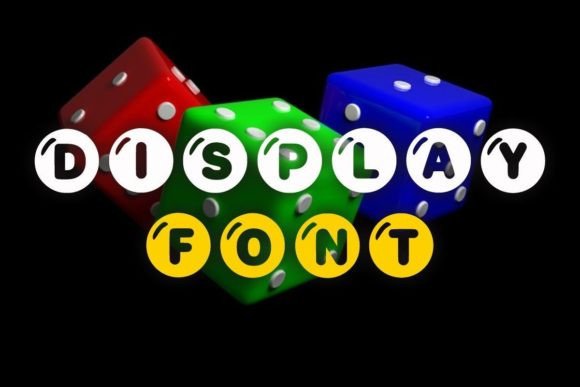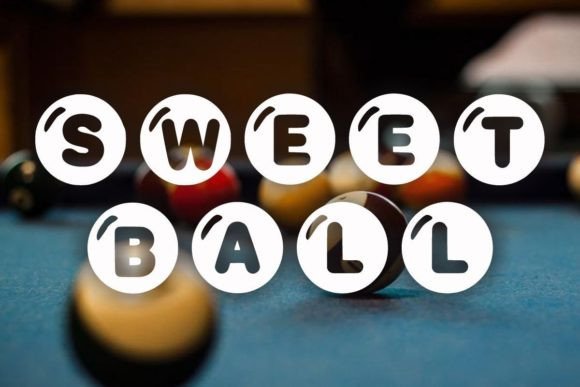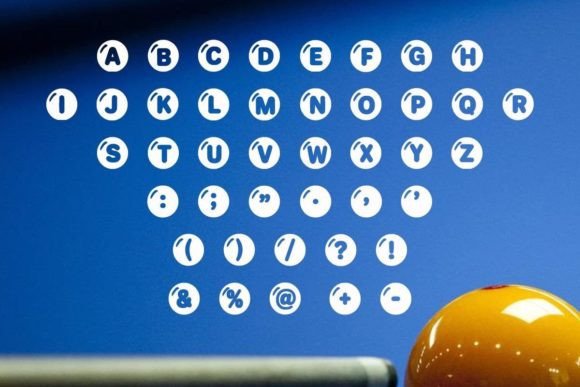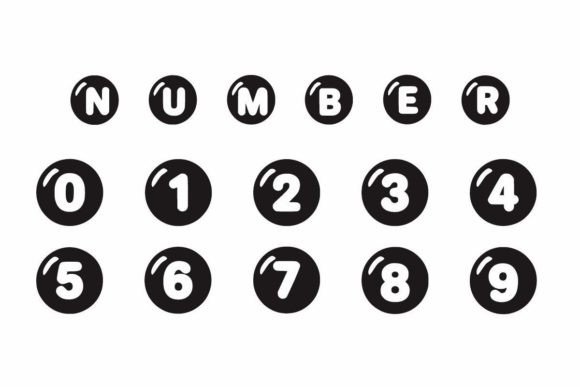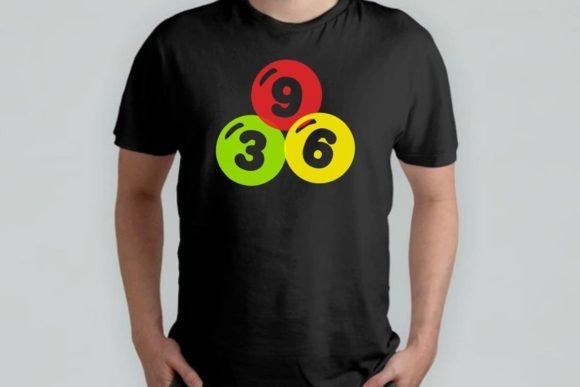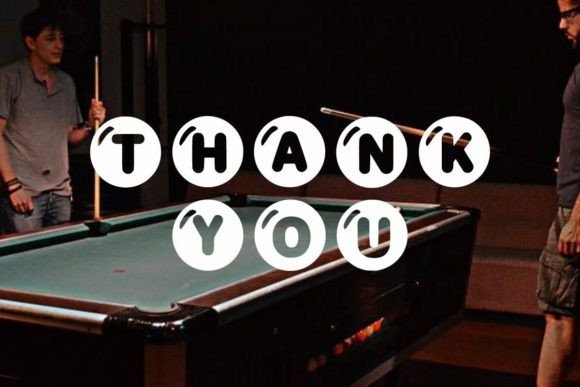
The Ultimate Guide to Casino Font: Adding a Touch of Youth and Joy to Your Designs
I’ll never forget the time I was working on a project for a client’s birthday party invitation. I had the design concept all sorted out, but I was struggling to find the perfect font to match the playful and festive vibe. That’s when I stumbled upon the CASINO font, a round and fun decorative font that instantly brought the design to life. In this article, I’ll share my experience with the CASINO font, its features, and how to make the most of it in your designs.
An Honest Review of Casino Font
Here’s what I love about the CASINO font:
• ✨ Playful and fun: The CASINO font is perfect for adding a touch of youth and joy to your designs.
• ✅ Highly versatile: It can be used for a wide range of design projects, from promotion and price tags to logos, party invitations, and more.
• 💃 Great for headlines and titles: The font’s bold and rounded style makes it ideal for grabbing attention and creating a lasting impression.
However, there are a few quirks to be aware of:
• 🤔 Limited legibility: As a decorative font, CASINO may not be the best choice for body text or long paragraphs.
• ⚠️ May not work well in small sizes: The font’s bold style can become distorted when scaled down, so it’s best used in larger sizes.
The Backstory of Casino Font
The CASINO font was designed with one goal in mind: to create a fun and playful font that would bring joy and youthfulness to designs. The designer wanted to create a font that would be perfect for party invitations, birthday cards, and other celebratory designs. With its bold and rounded style, the CASINO font is sure to bring a smile to anyone’s face.
What is the CASINO font best used for? The CASINO font is perfect for headlines, titles, and promotional materials, such as party invitations, price tags, and logos.
Is the CASINO font suitable for body text? No, the CASINO font is a decorative font and may not be the best choice for body text or long paragraphs.